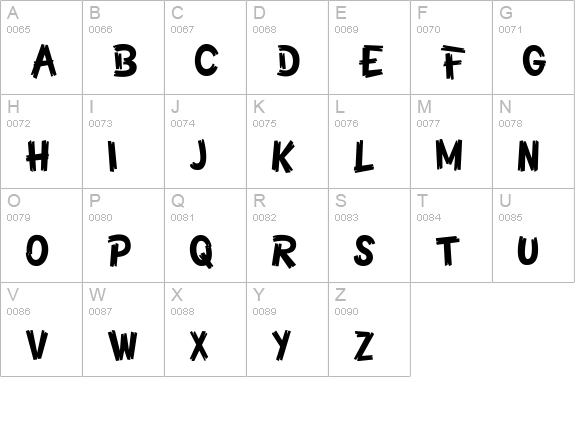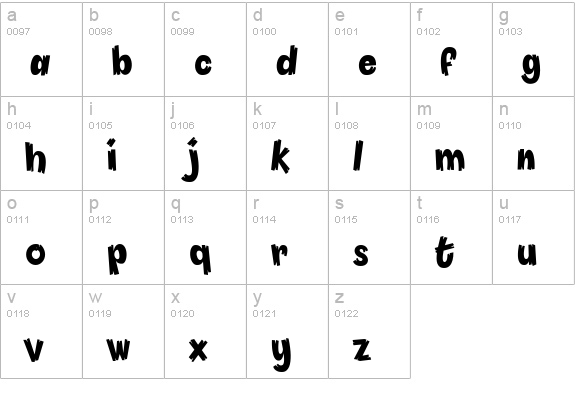
Pineapple Demo is a free for personal use font in the Script > Graffiti category. It has been downloaded 55 times and is available for Windows, Mac and Linux.
Introducing Pineapple Demo, a delightful and playful font that is sure to add a touch of whimsy to any creative project. This charming typeface features a unique combination of rounded edges and bold strokes, creating a visually appealing aesthetic that is both modern and timeless. With its friendly and inviting appearance, Pineapple Demo is perfect for a variety of design applications. Whether you're working on a logo, branding materials, invitations, or even a cute children's book, this font will bring a cheerful and lighthearted feel to your work. What makes Pineapple Demo even more appealing is that it is freely available to download at FontsMarket.com. That's right, you can enjoy the beauty and versatility of this font without spending a dime. This means that you can incorporate Pineapple Demo into your designs without worrying about breaking the bank. Not only is Pineapple Demo free, but it also comes with a wide range of characters and glyphs, making it suitable for multiple languages and typographic variations. This font is designed with precision and attention to detail, ensuring that every character is visually pleasing and harmoniously balanced. So why wait? Download Pineapple Demo today from FontsMarket.com and unleash your creativity with this captivating and freely available font. Whether you're a professional designer or a hobbyist, Pineapple Demo is sure to become your go-to font for all things fun, fresh, and free.